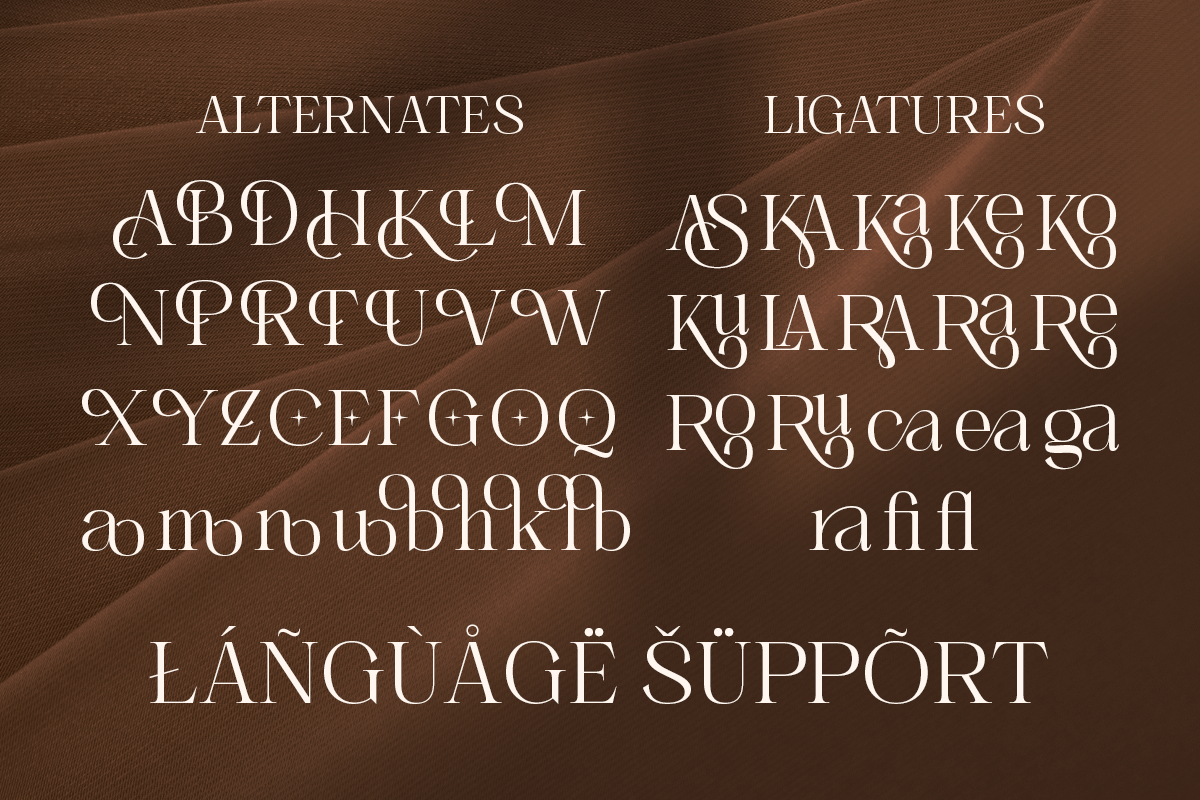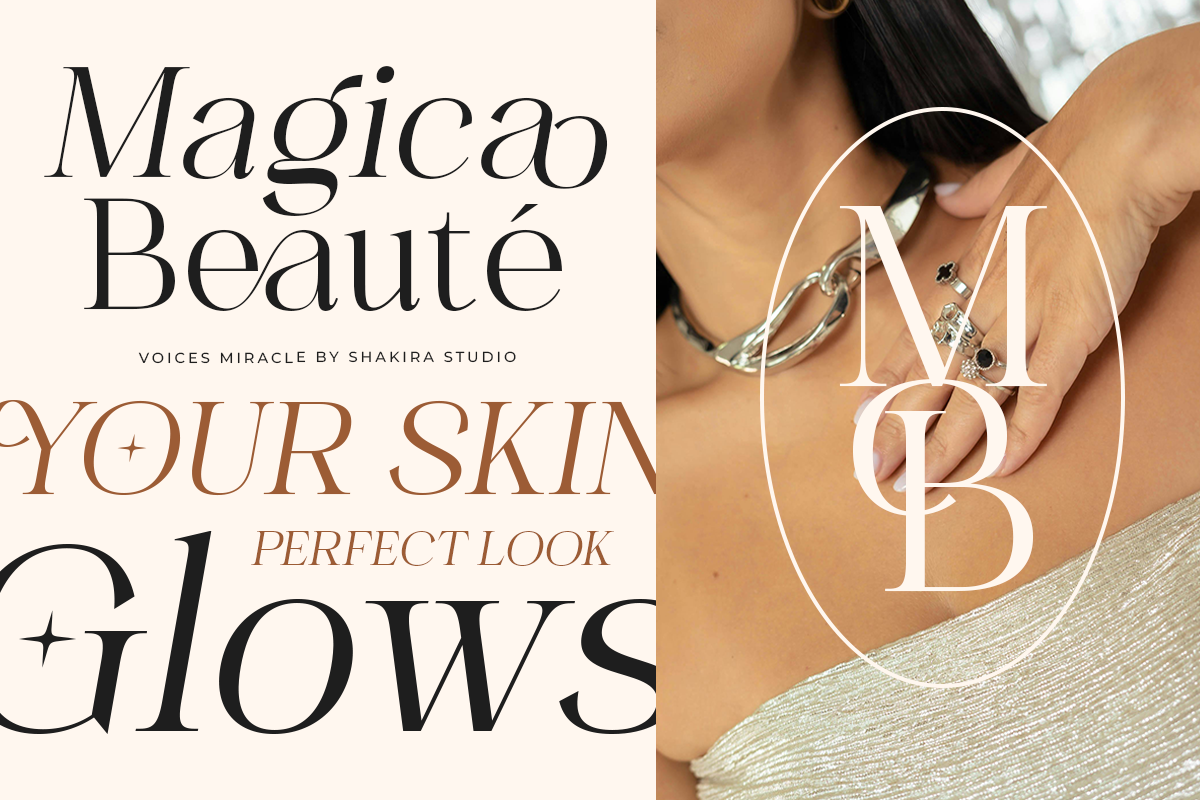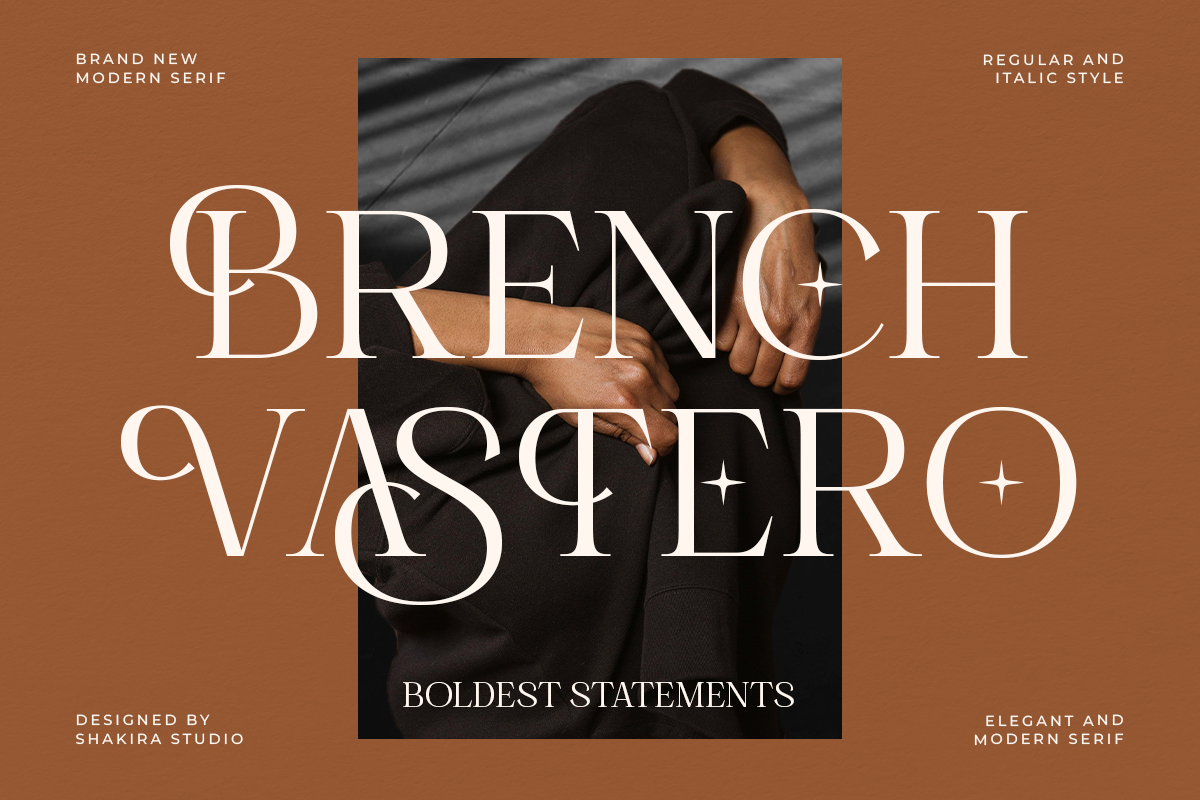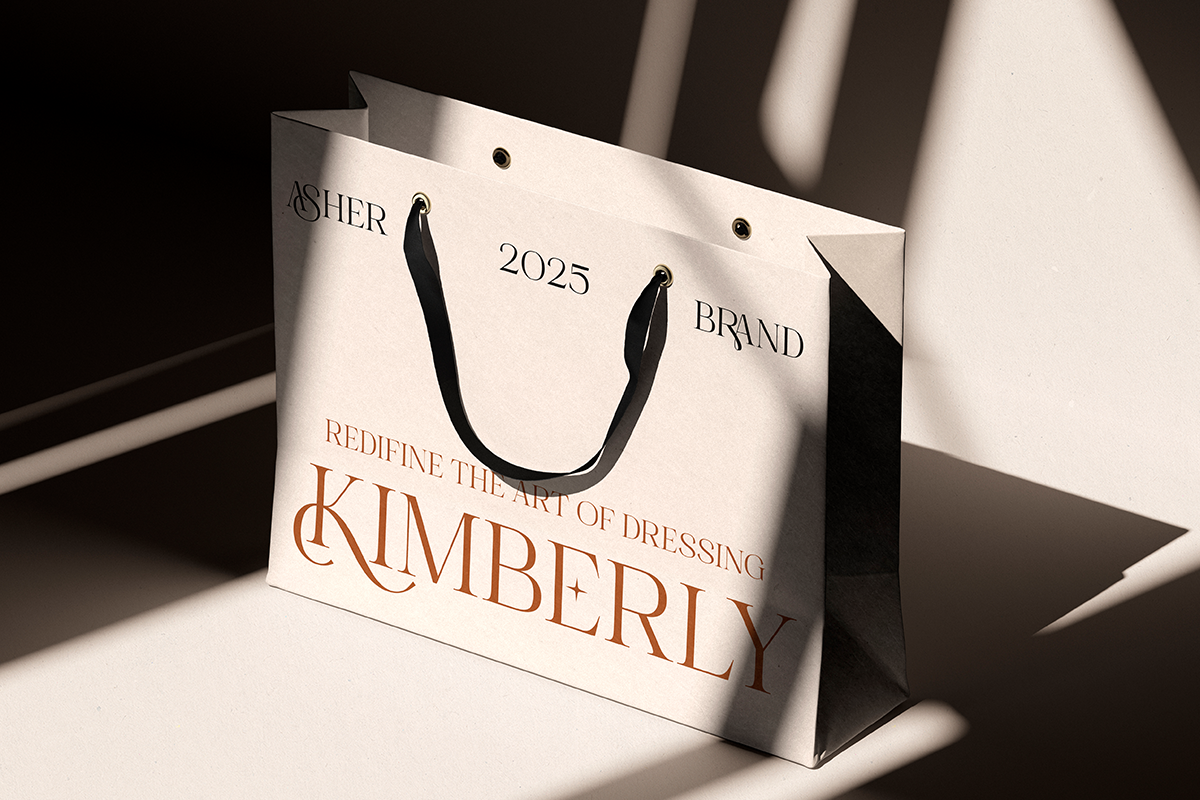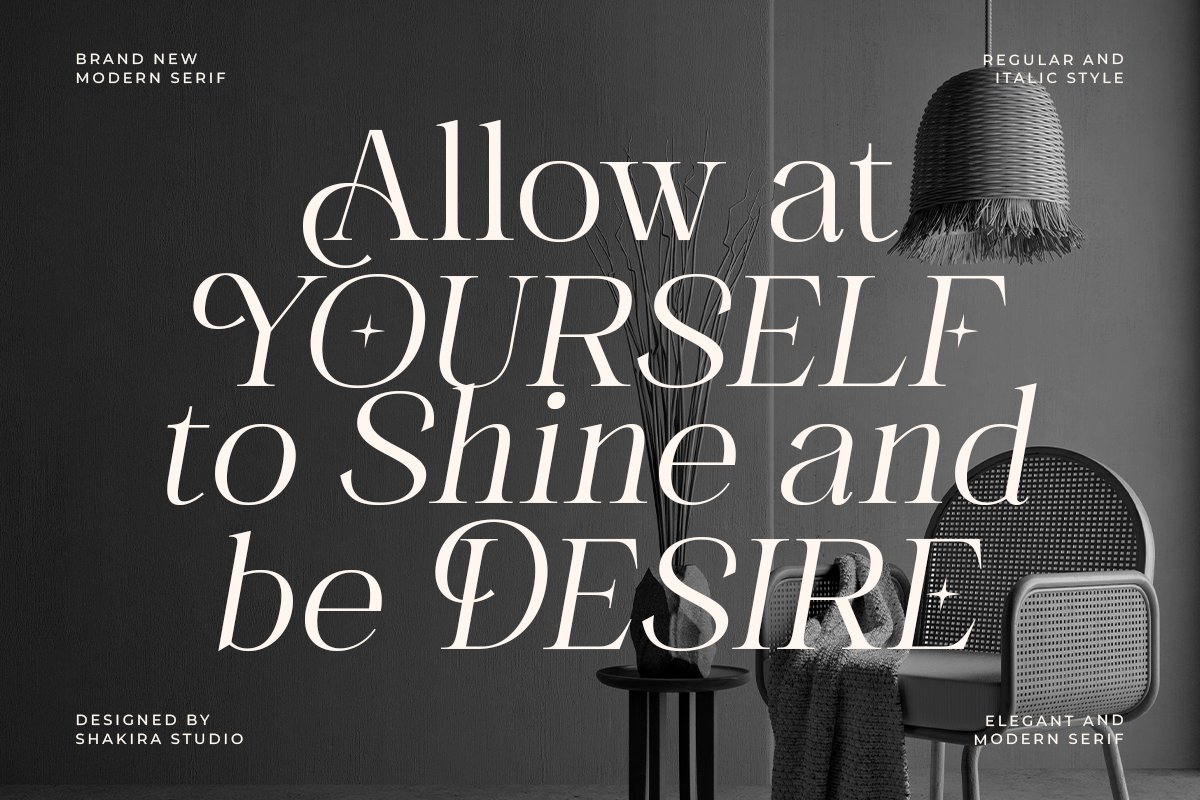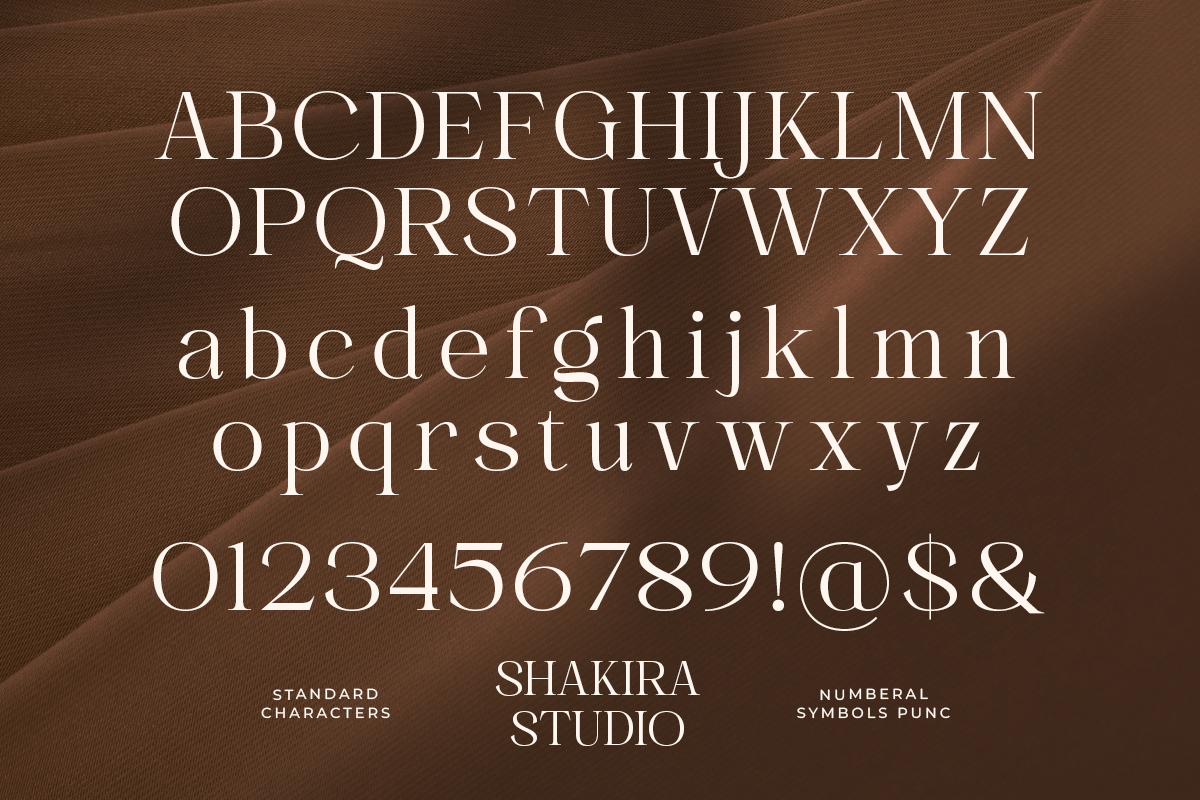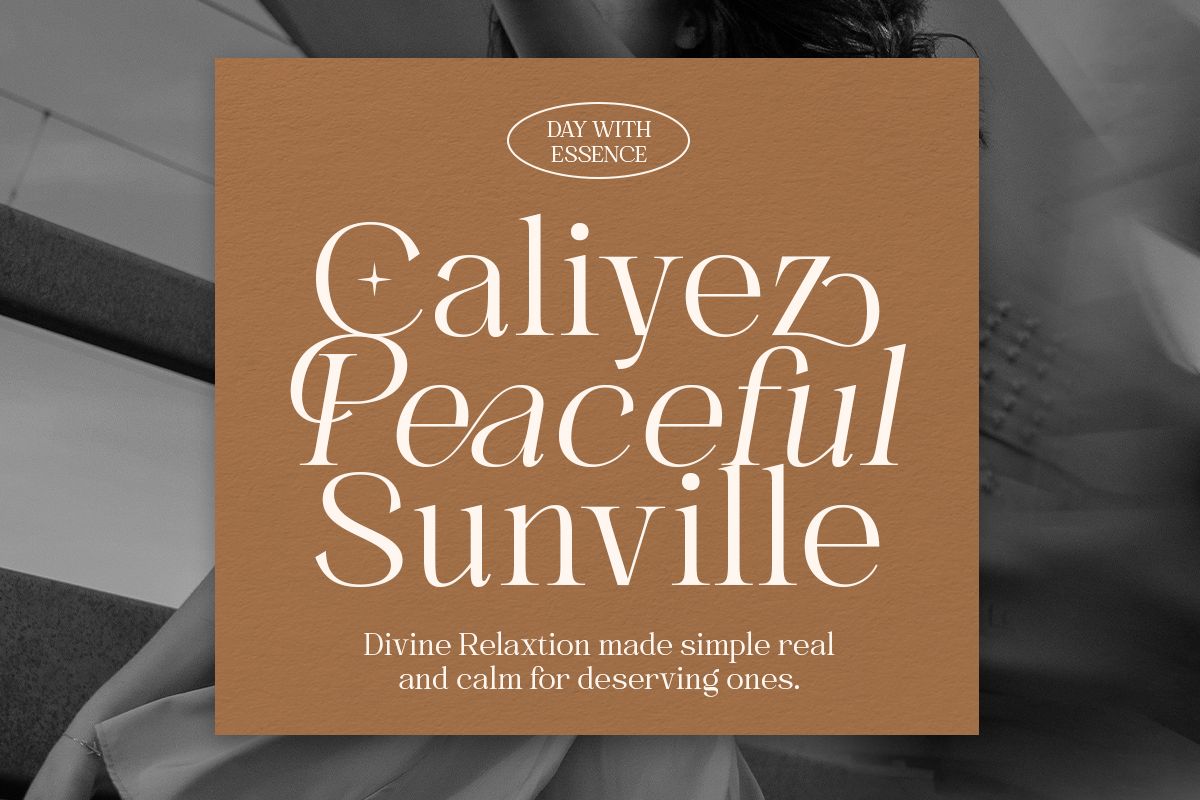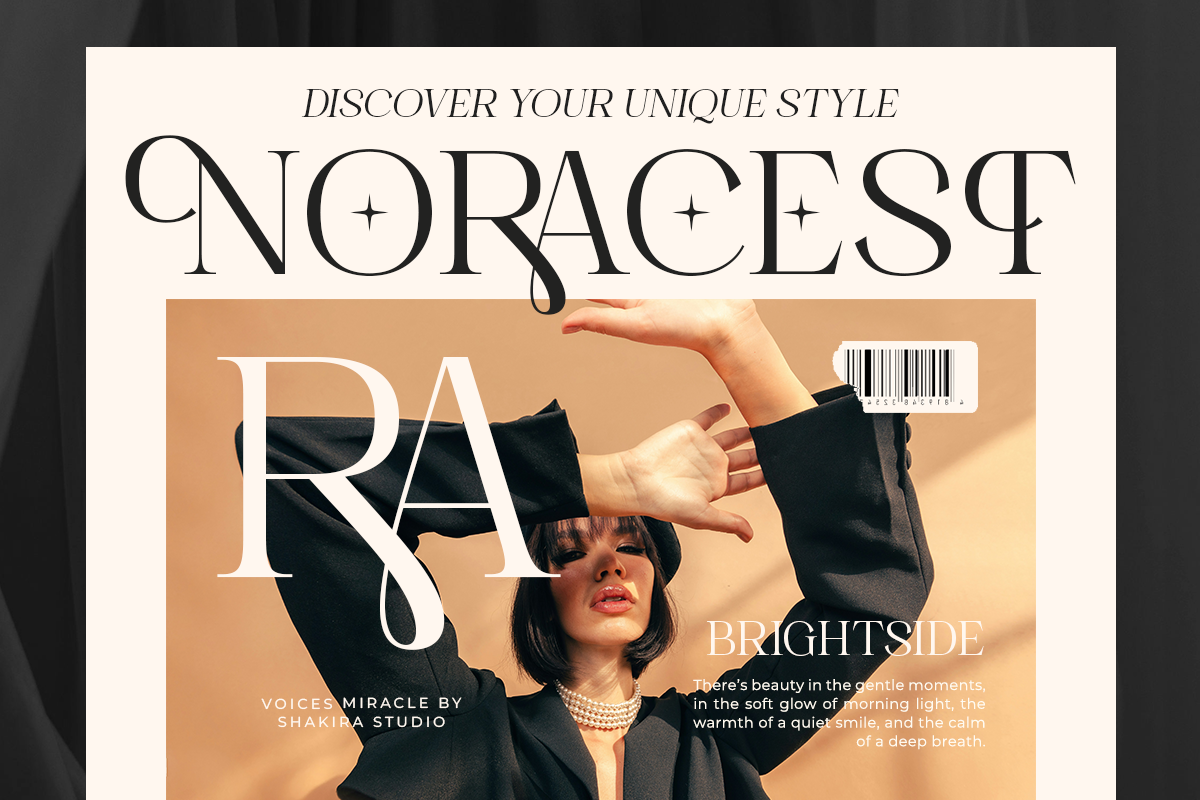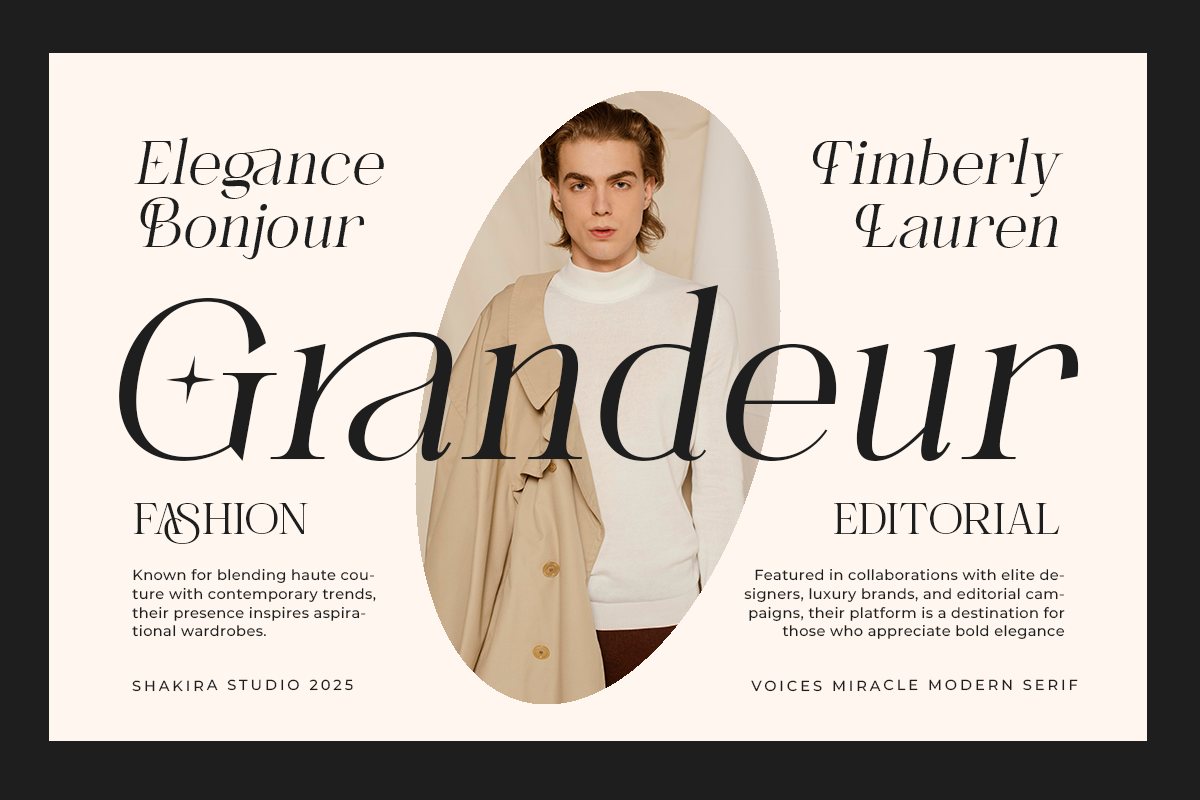
Voices Miracle - Minimal Elegant
Voices Miracle is a minimal modern serif font with cinematic energy and luxury refinement. Each letterform is designed with graceful proportions, making it ideal for magazine covers, branding projects, packaging, and visual storytelling. Its editorial charm and subtle contrast make it a versatile font for designers seeking timeless elegance.
- Regular & Italic Versions
Perfect For: Editorial design, fashion branding, packaging, luxury invitations, and logo projects.